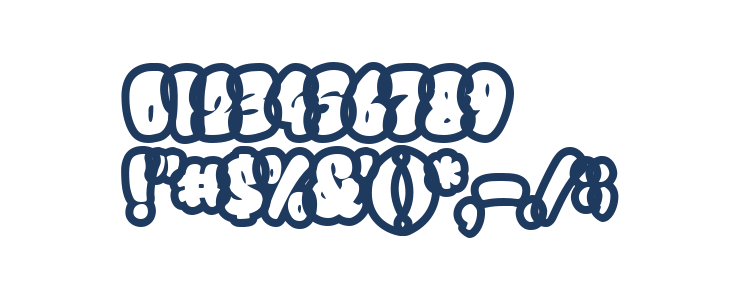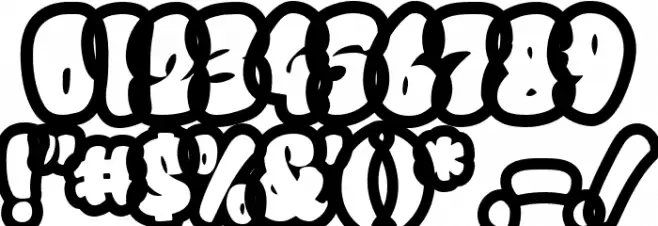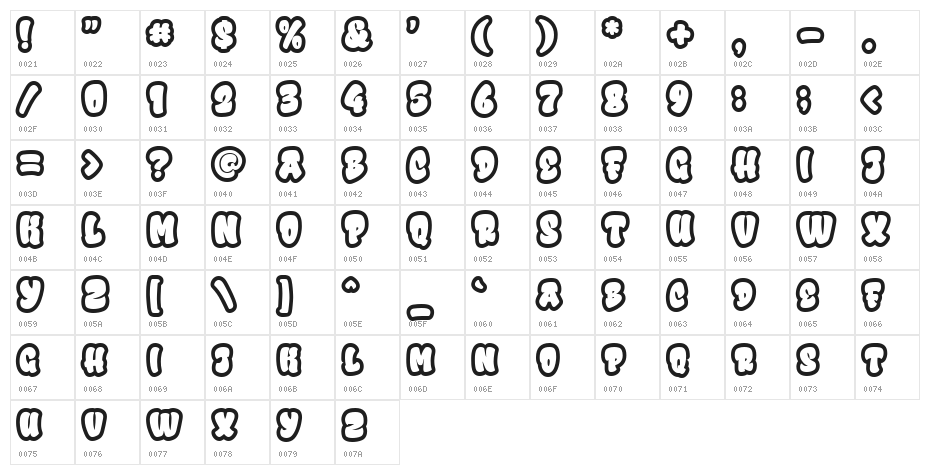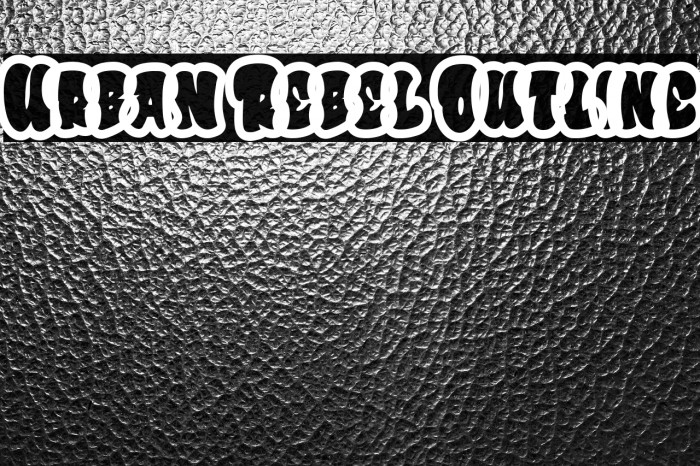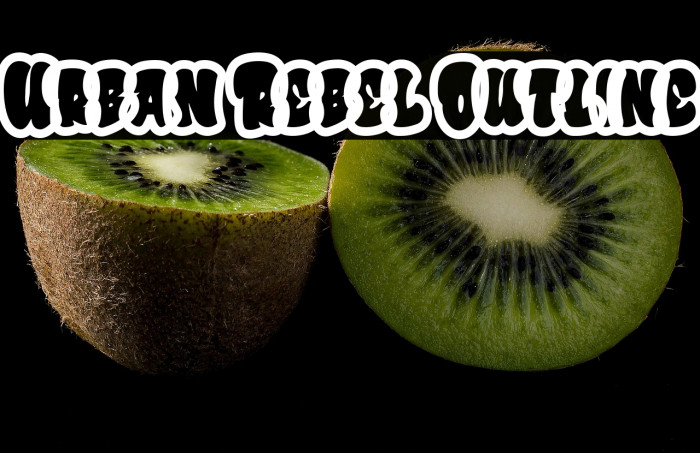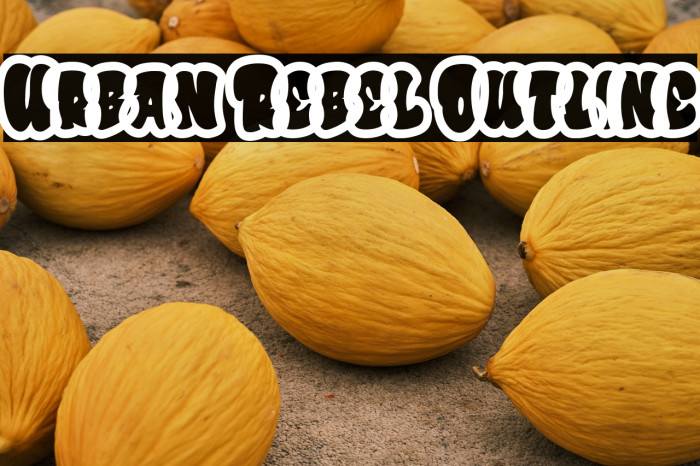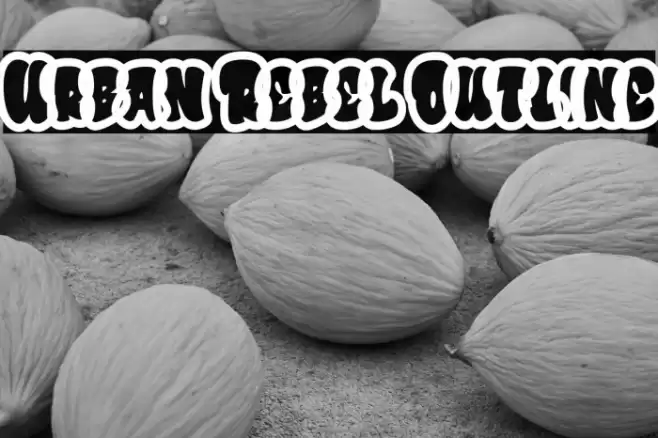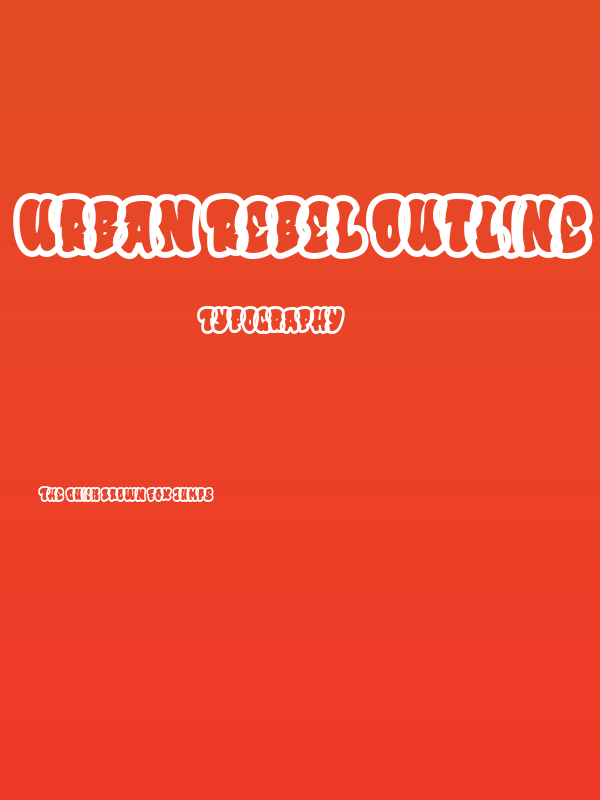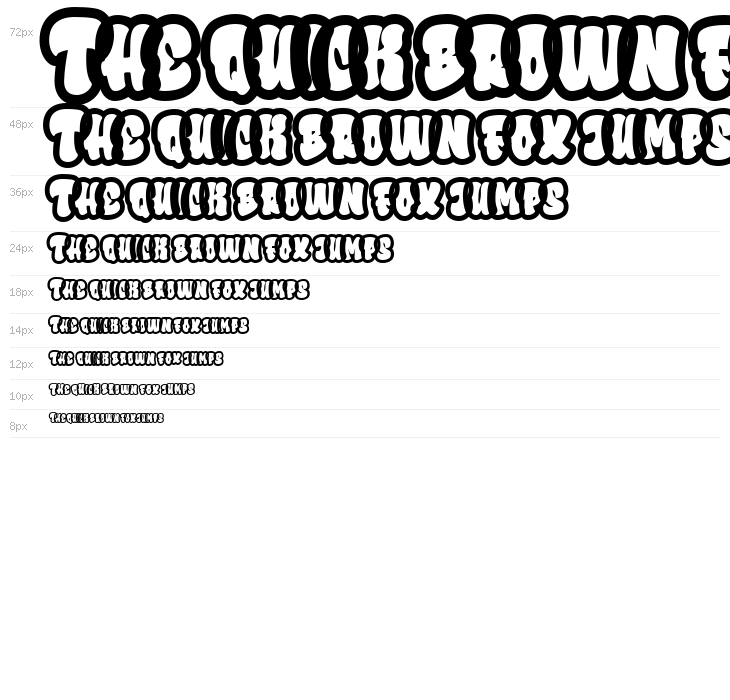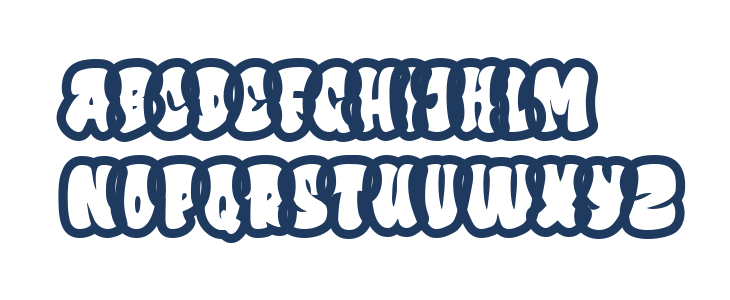
Urban Rebel Outline Font
Urban Rebel Outline Description
This font features a bold, playful outline style that exudes a sense of urban flair and rebellious spirit. The characters are thick and rounded, with a distinct bubble-like appearance that makes them stand out. The outline effect adds depth and dimension, creating a striking visual impact. Each letter maintains a consistent thickness, contributing to a cohesive and unified look. The font's design is both modern and edgy, making it ideal for projects that require a bold statement. Its unique style is perfect for capturing attention and conveying a sense of fun and creativity.
| Proposed Projects | Ideal for street art designs, music festival posters, graffiti-inspired branding, and creative advertising campaigns. |